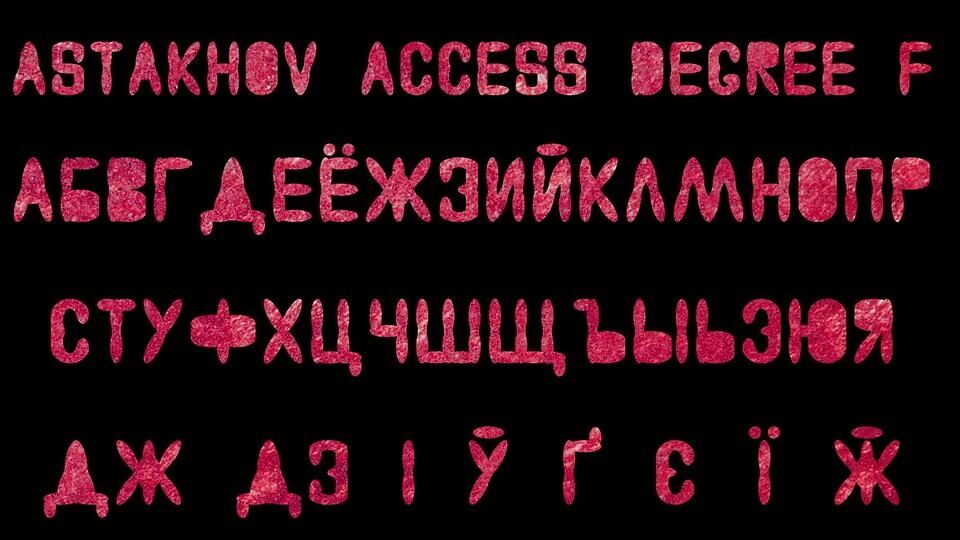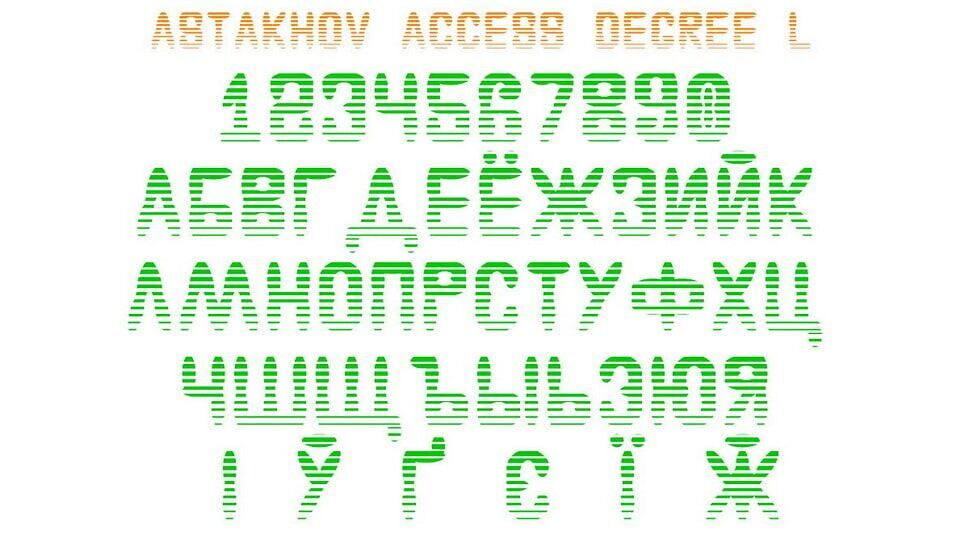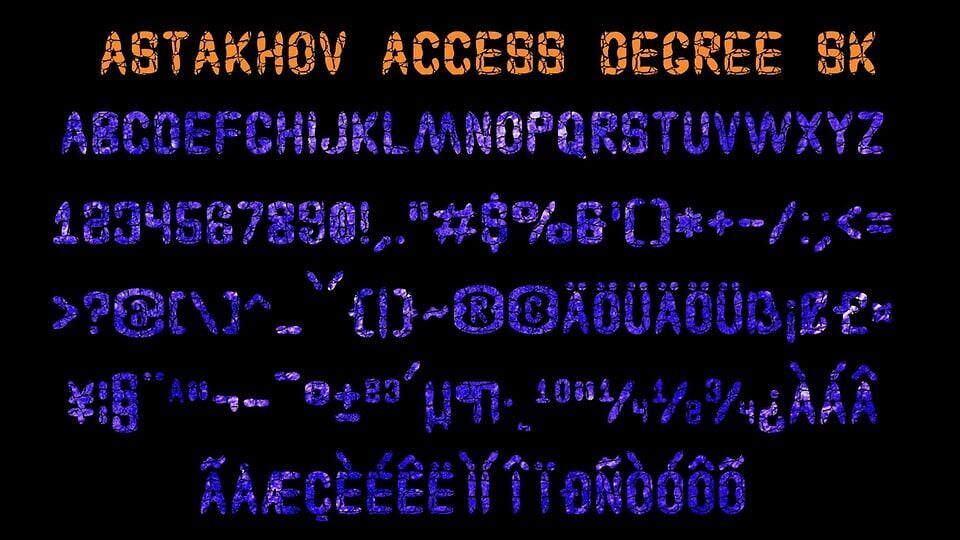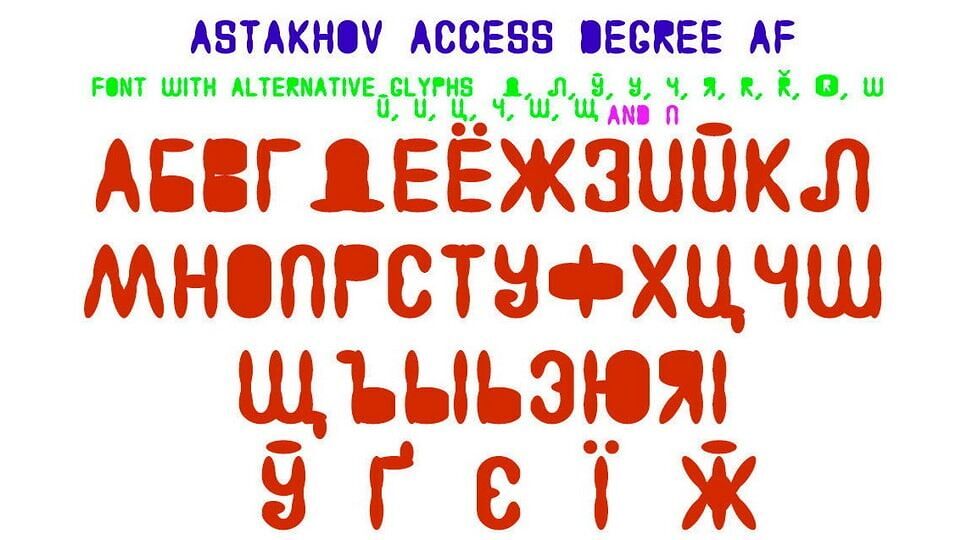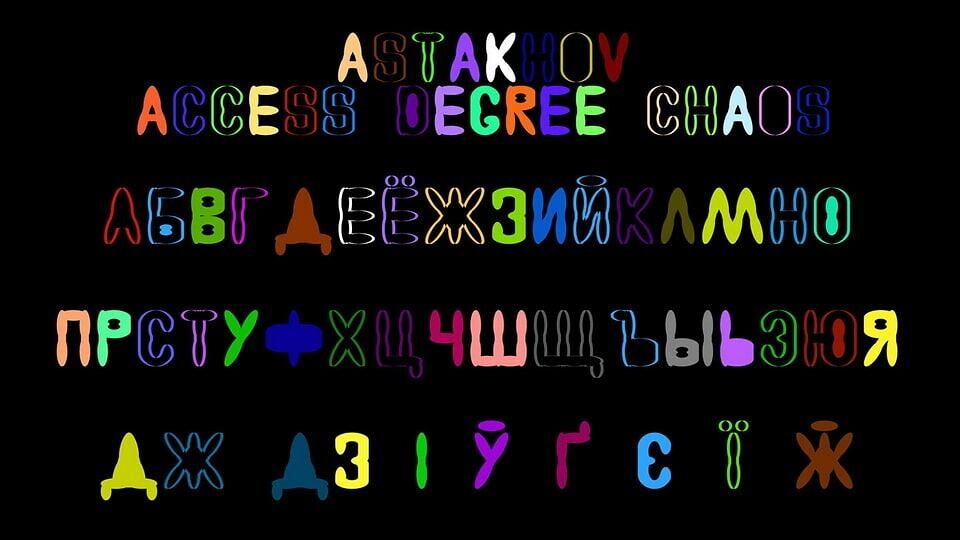
Astakhov Access Degree is a futuristic display typeface with bold, thick letterforms and a bubbly, liquid-like texture that evokes neon light reflections.
Its organic, soft-edged patterns add movement and energy, making it ideal for striking headlines, sci-fi or cyber designs, digital posters, and experimental branding. Perfect for gaming, tech, or artistic projects, this typeface blends bold presence with a fun, glowing vibe.